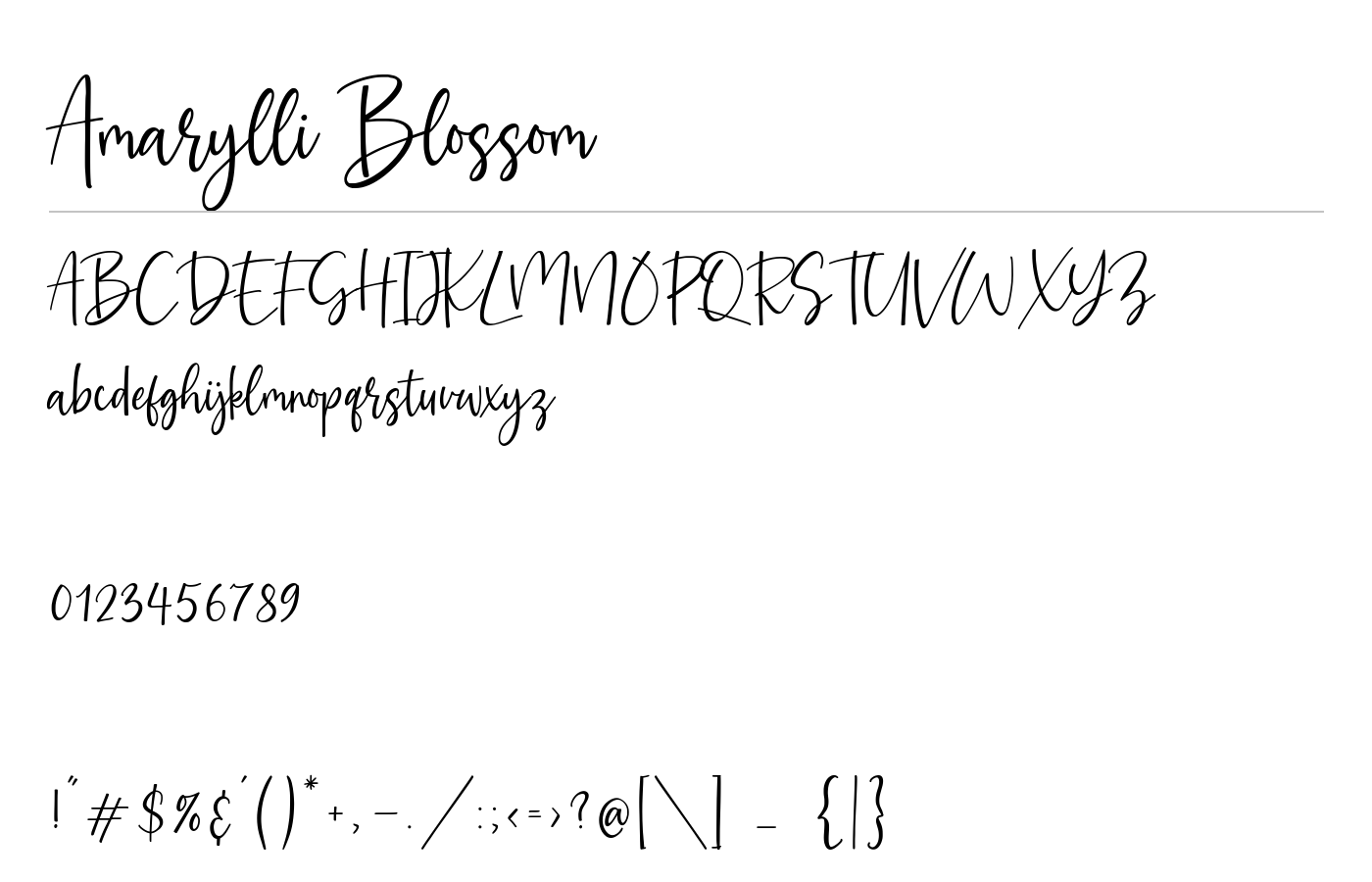
Amarylli Blossom is a delicate and elegant handwritten script font with a whimsical, flowing style that features tall, slender letterforms and subtle variations in stroke weight. It conveys a personal, warm, and artistic feel, making it ideal for creative branding, invitations, or feminine and romantic designs. This font works beautifully in logos, wedding materials, and stylish editorial projects where a charming, handwritten touch is desired.
Amarylli Blossom Font
About Amarylli Blossom Font
| Font family | Amarylli Blossom Font |
| Designer | Balpirick 2020 |